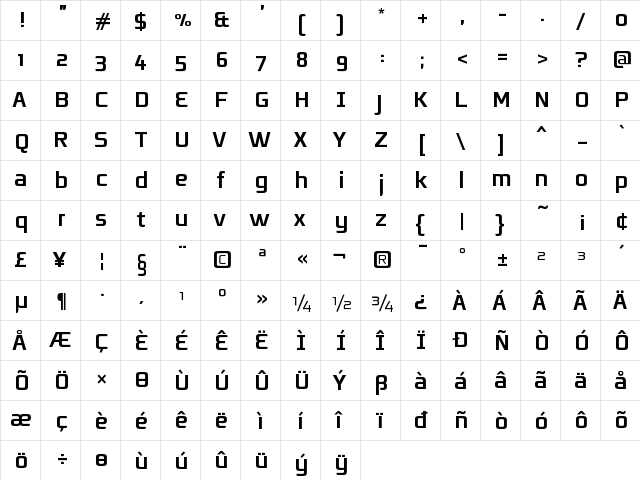
Resea Bold
Design Context for Resea Typeface
Resea offers clean, dependable letterforms without strong stylistic allegiance, making it a practical choice for designers who need flexibility. The heavy weight commands attention and anchors typographic hierarchies.